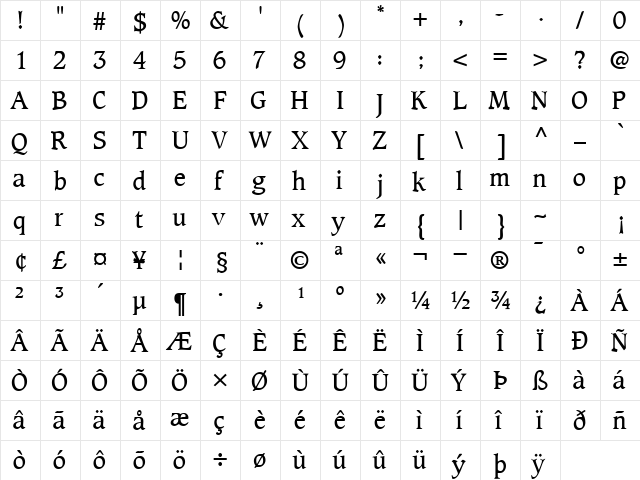
GrammateusSSK Regular
Design Context for GrammateusSSK Typeface
GrammateusSSK takes a measured approach to typography — its balanced proportions and neutral character make it a reliable workhorse for both digital and print work.
Pro Tip: Use GrammateusSSK in both headline and body roles to test its range before committing to a single application.